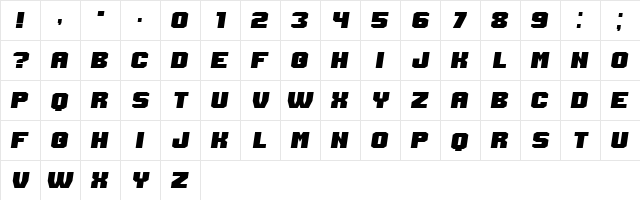
Login Italic Font Preview
Login Italic
Design Context for Login Typeface
Login is a composed and adaptable typeface that performs quietly and consistently across a wide range of design contexts. The dynamic lean of this cut emphasises speed and emphasis in any layout.
Pro Tip: Try Login for annotation and caption copy alongside an upright companion — the contrast in angle creates a dynamic but ordered typographic system.